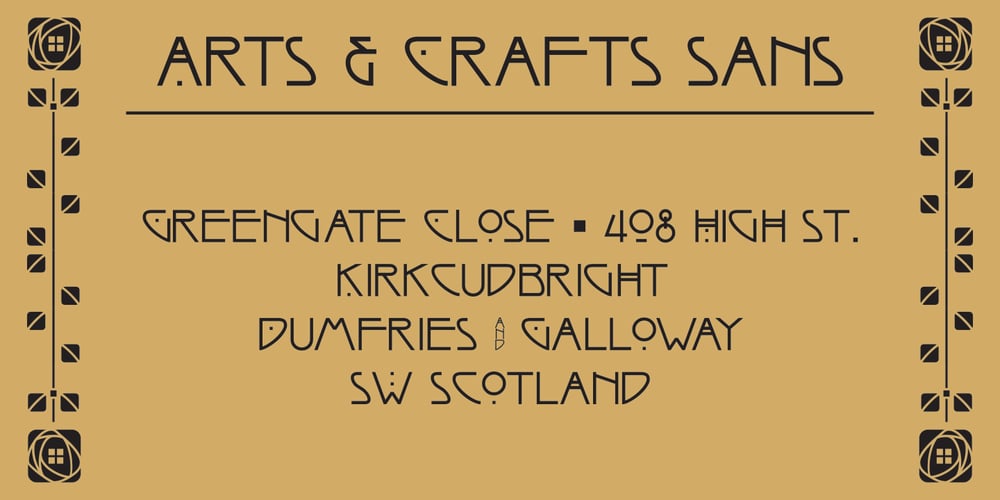
Arts And Crafts Sans BA Font Family was designed by Todd Hallock and published by Bannigan Artworks. Arts And Crafts Sans BA contains 1 styles and family package options. This is the sans serif version of my Arts and Crafts family of typefaces.